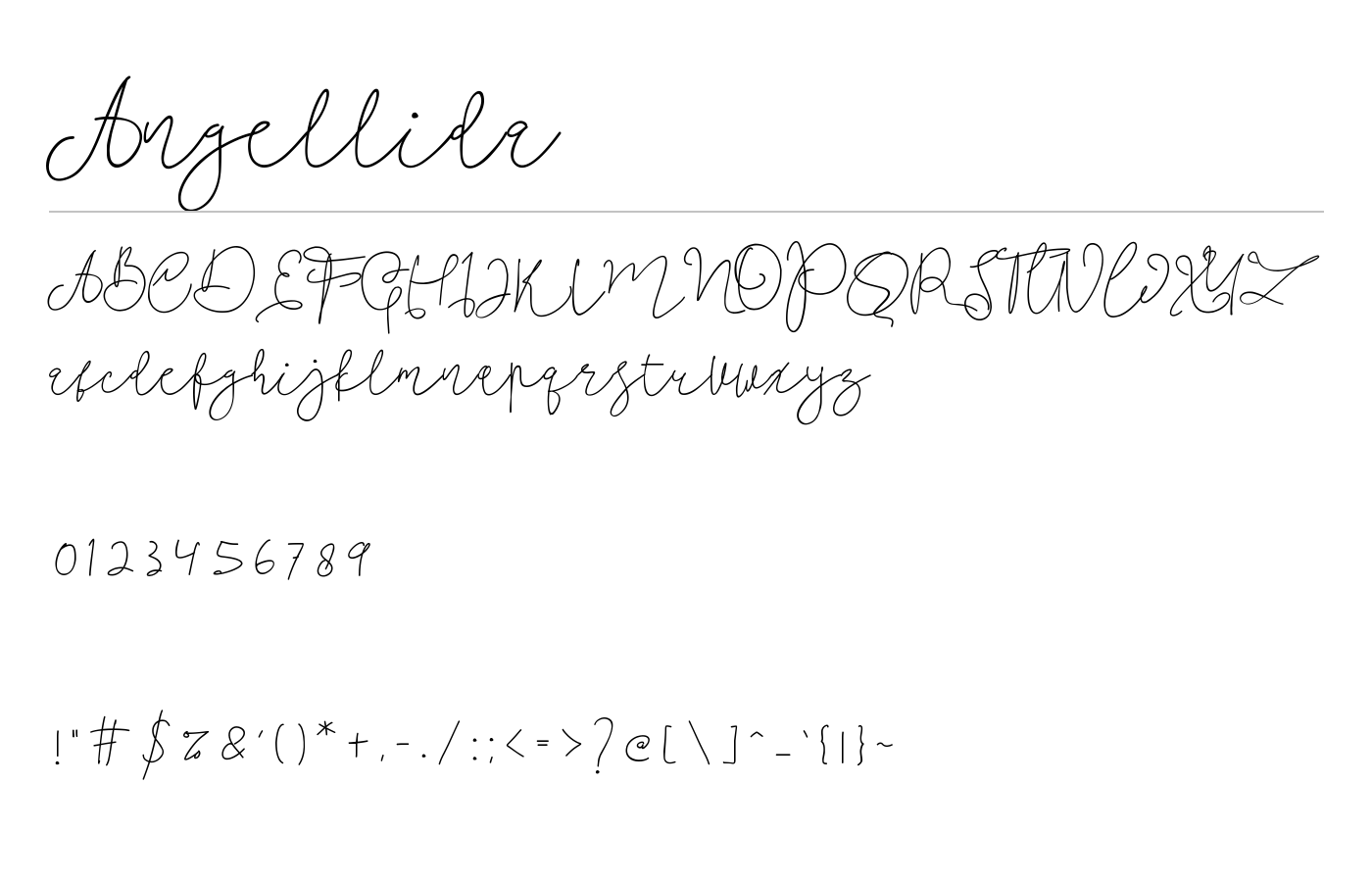
Angellida is a delicate, handwritten script font characterized by its thin, flowing strokes and elegant, airy style. Its tall, narrow letterforms and whimsical loops give it a graceful, personal feel ideal for invitations, branding, and creative projects that seek a touch of sophistication and warmth. This font works beautifully for designs that want to convey charm, creativity, and elegance with a modern, handwritten flair.
Angellida Font
About Angellida Font
| Font family | Angellida Font |
| Designer | Mozyen Studio |